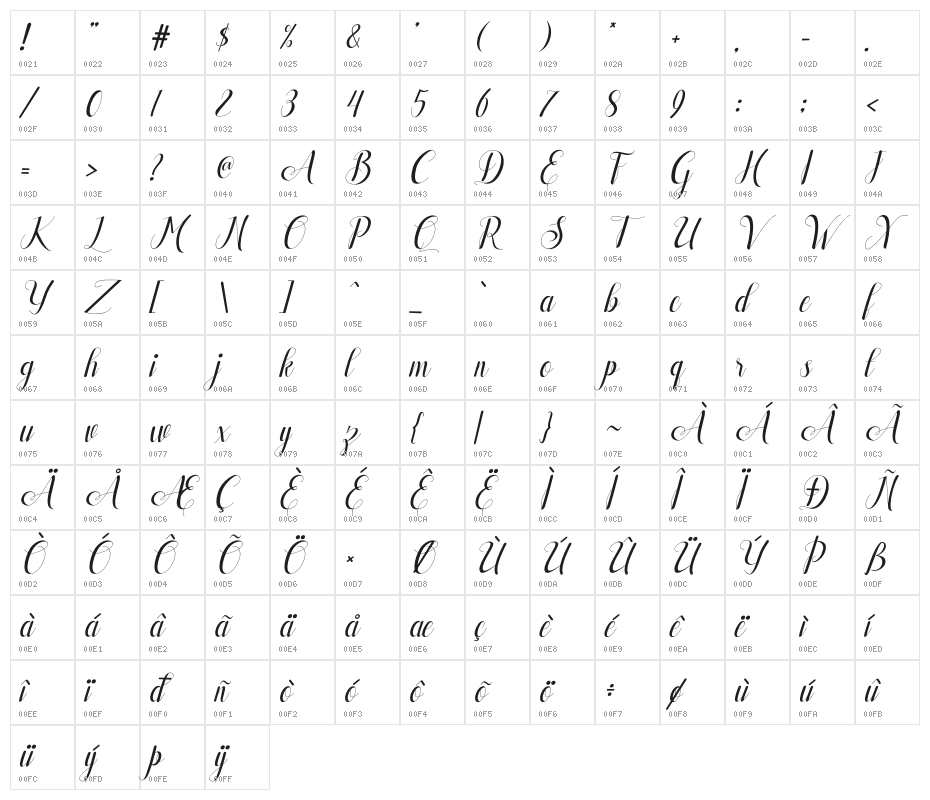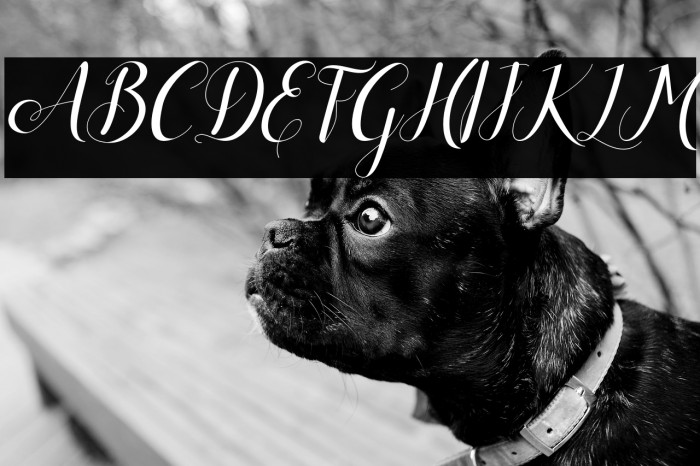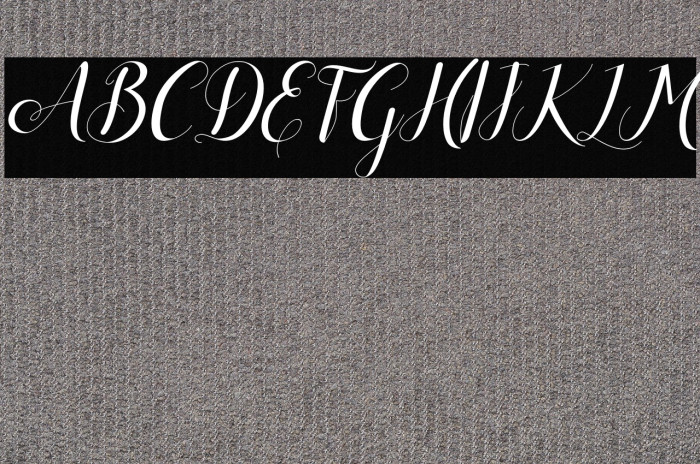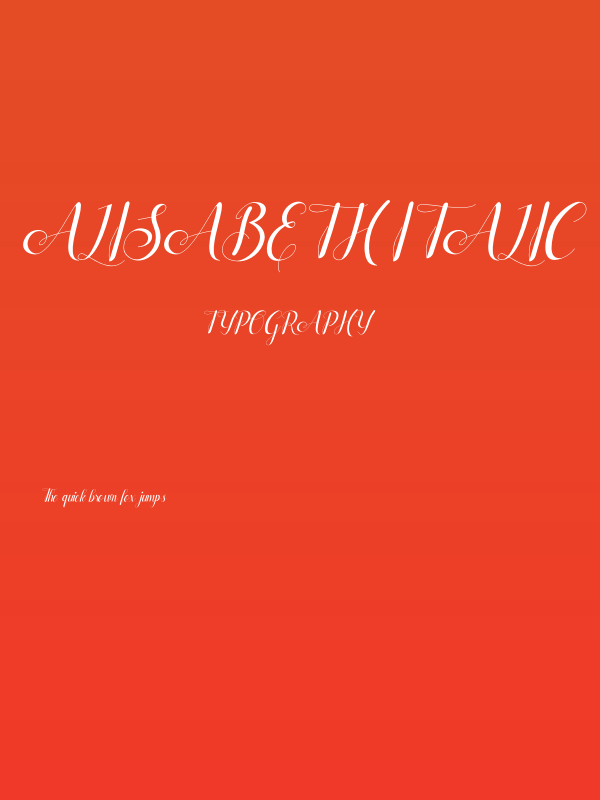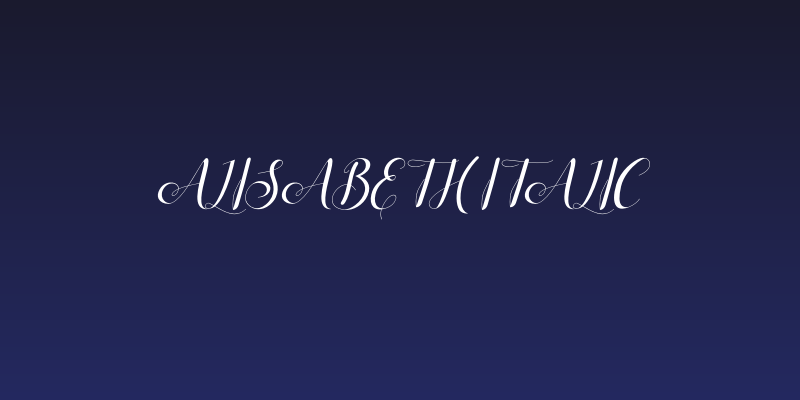
Alisabeth Italic Font
Alisabeth Italic Description
This font exudes elegance and sophistication with its flowing, cursive style. The letters are intricately designed with graceful curves and loops, giving it a handwritten appearance. The uppercase letters are particularly ornate, featuring elaborate swashes that extend beyond the baseline and cap height. The lowercase letters maintain a consistent flow, enhancing readability while preserving the decorative nature. The numerals and special characters are equally stylish, integrating seamlessly with the overall script design. This font is ideal for projects that require a touch of class and refinement.
| Overall Style | Elegant, Decorative |
| Proposed Projects | Wedding invitations, luxury branding, elegant stationery, and high-end product packaging. |